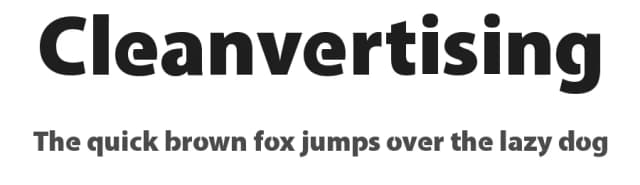
About Streetvertising Public Font
Streetvertising Public is a sans-serif font designed by Cleanvertising.com. It includes 526 glyphs, a bold weight, TTF (TrueType) format, and 272 languages. Streetvertising Public is free to download; check the license details on this page before commercial use. Sans-serif fonts like Streetvertising Public work best for clean body text, user interfaces, branding, and modern layouts.
Streetvertising Public ships with 11 OpenType features you can switch on in apps that support them (Illustrator, InDesign, Affinity, Figma, CSS font-feature-settings).
- Lining figures
Streetvertising Public supports 272 languages.
Streetvertising Public Font is a versatile sans-serif font that works for both headings and body text. Pair it with a contrasting serif or slab serif font to add visual interest and a clear distinction between titles and body copy.
Streetvertising Public Font